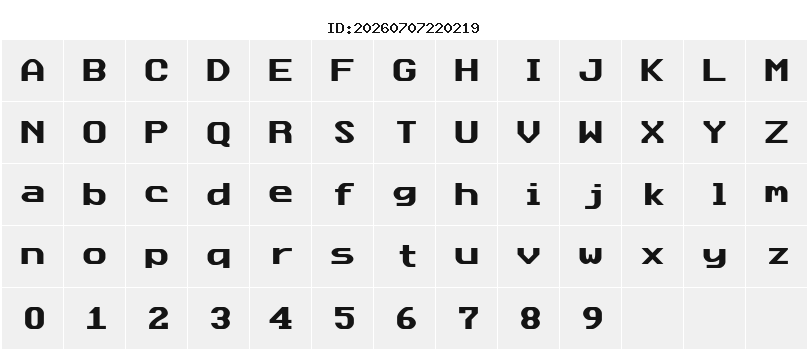
DataSunFixed Preview
• Font Name: DataSunFixed
• Font ID: FontForge 2.0 : Data Sun Fixed-Width : 30-8-2015
• Full Font Name: Data Sun Fixed-Width
• Version: Version 0.945
• PostScript Name: DataSunFixed
• Character Count: 170
About DataSunFixed.otf
DataSunFixed.otf is a modern, elegant sans-serif font designed for ultimate readability and visual harmony. Perfect for branding, headlines, web design, and print materials.